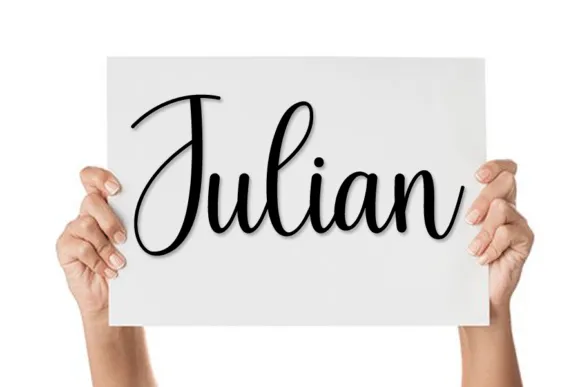
Elegant Beside Font Download
Elegant Beside Font is a work of art and straightforward transcribed script, made in an irregular and free-form.
It is reasonable for logotype, title textual style, in corporate personality, brand character, clothing industry, banner, music, film, game, magazine, book, comic, animation, YouTube, Instagram, site, or any of your imaginative plan projects